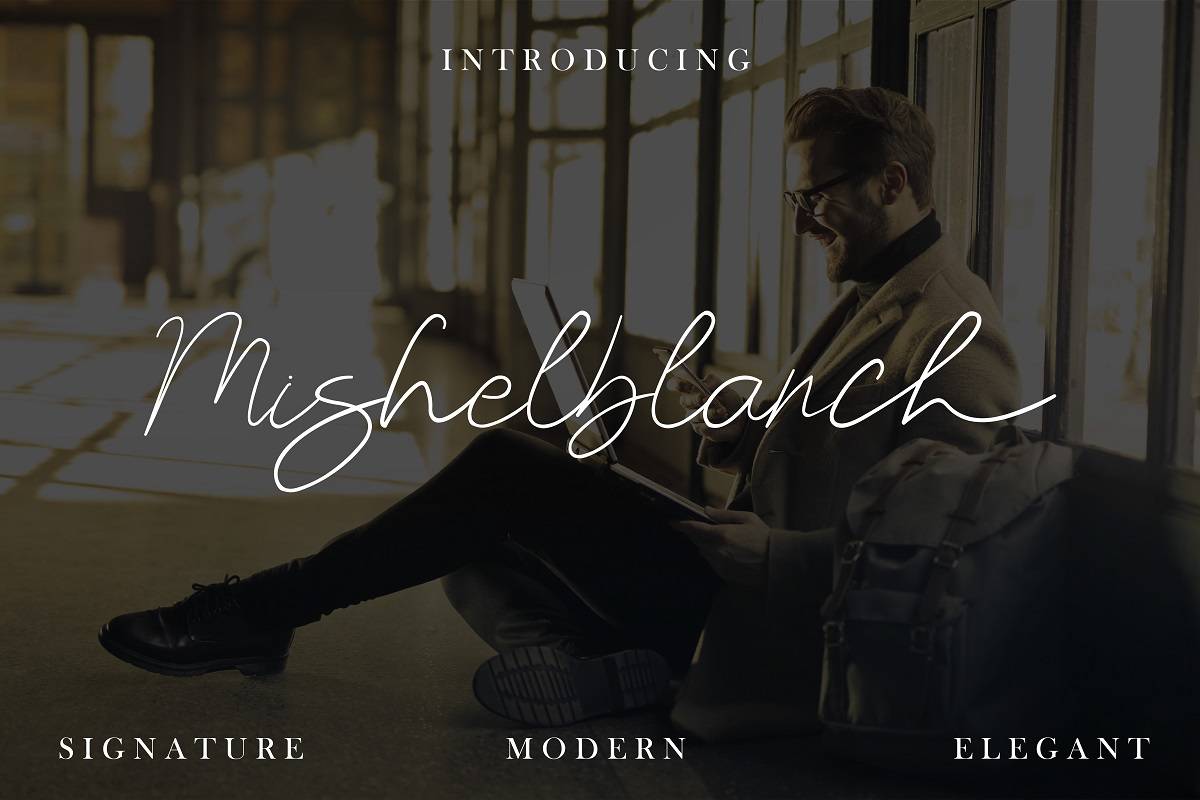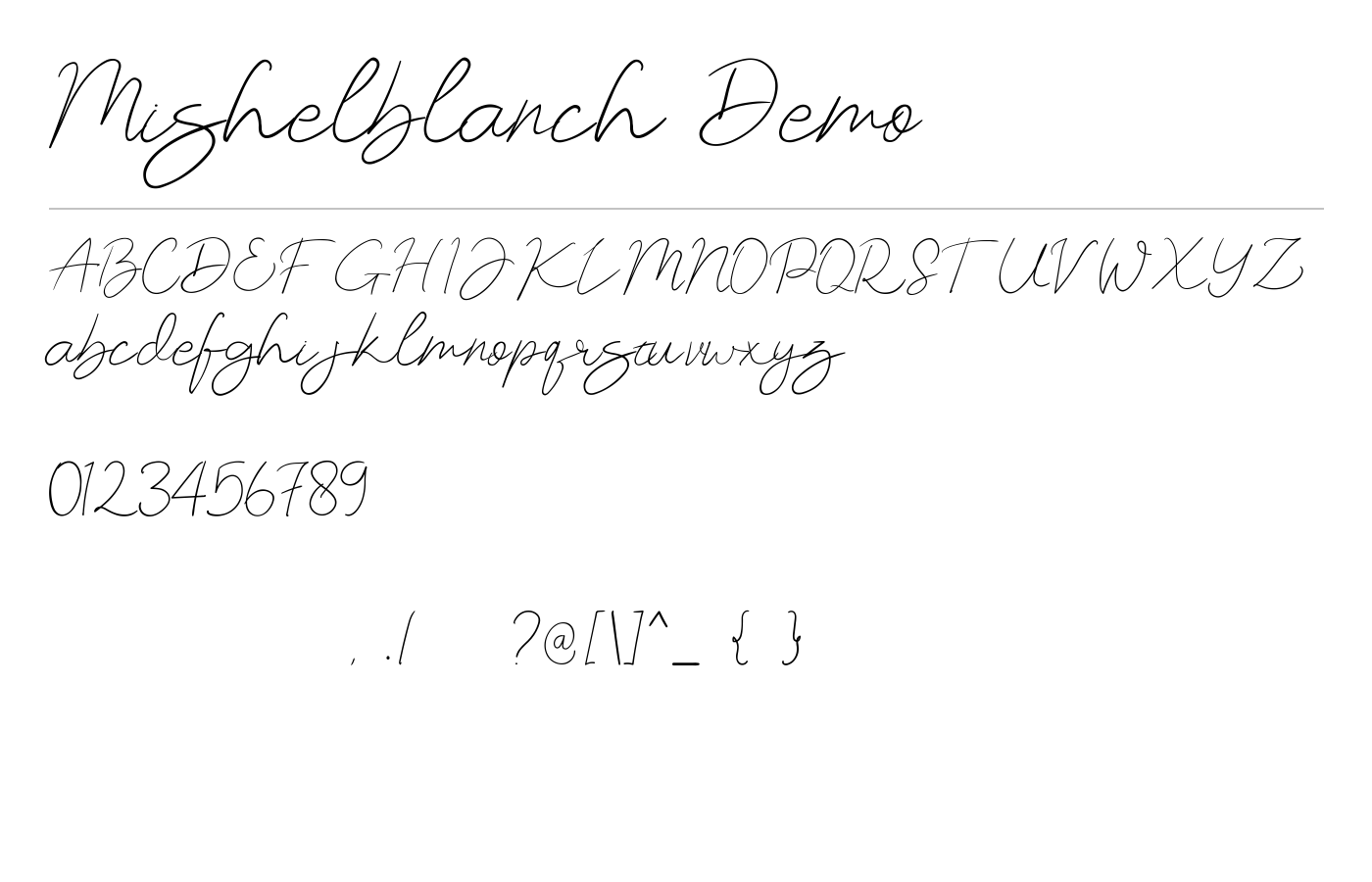
Mishelblanch is a delicate, handwritten script font featuring thin, flowing strokes that convey a graceful and personal touch. Its elegant yet casual style works beautifully for invitations, branding, and creative projects that seek a natural, refined, and approachable feel. This font is ideal for adding a sense of charm and sophistication without being overly formal.
Mishelblanch Font
About Mishelblanch Font
| Font family | Mishelblanch Font |
| Release date | 2021-07-01 |
| Designer | Ahmad Kartiwa |